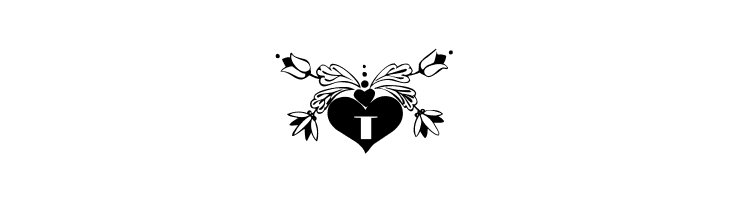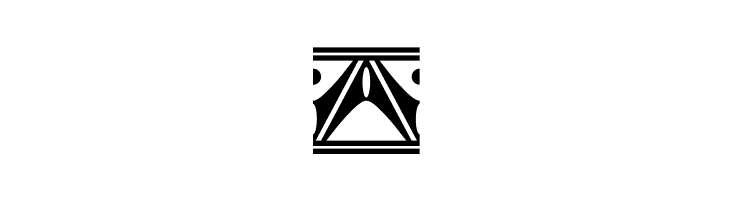
A decorative collection of star-themed symbols and patterns.
A decorative font made of screw-like symbols, offering a mechanical and industrial aesthetic.
A decorative geometric pattern font with Southwestern influences.
Ancient cuneiform-inspired font with geometric, wedge-shaped glyphs.
A novelty font featuring marching figure silhouettes.
Ornate heart and floral decorative pattern.
A bold, decorative font with a star-patterned fill, ideal for striking displays.
A playful alligator motif with a bold, cartoonish style.
A collection of intricate, ethnic-inspired geometric dingbat patterns.